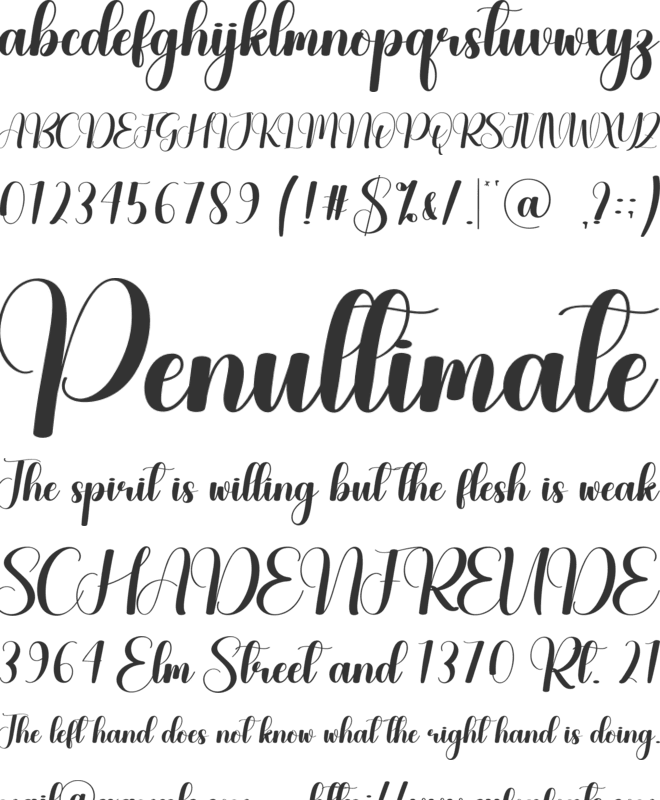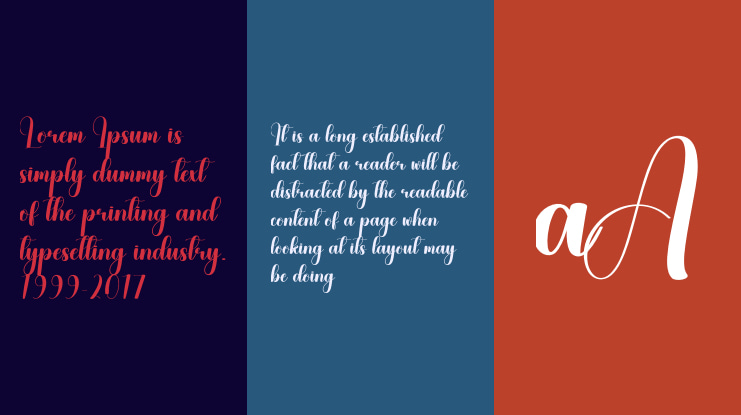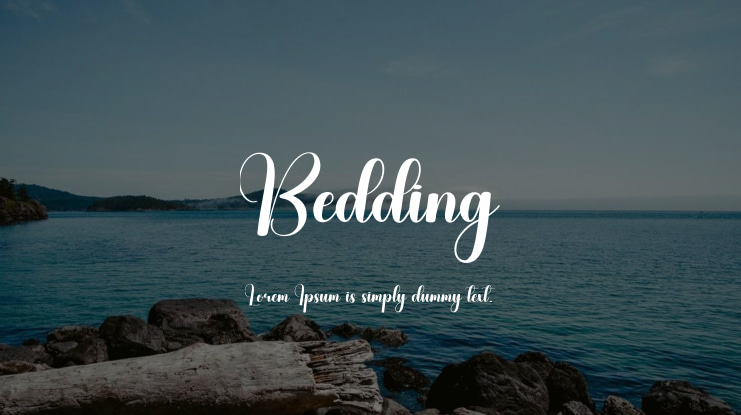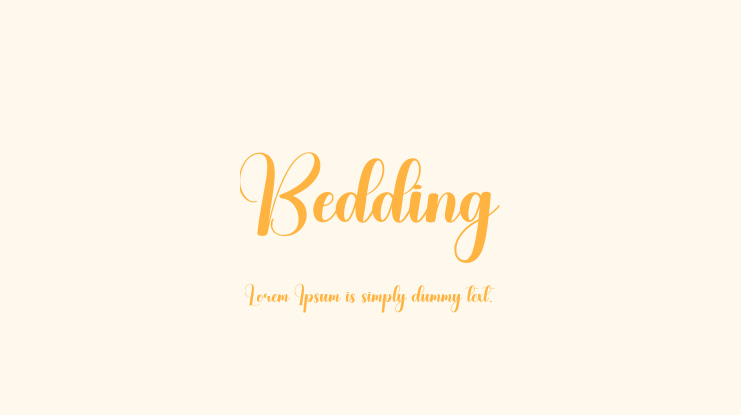
Bedding Font
The latest style letters are perfect for wall displays, wedding invitations, social media post logos, advertisements, product packaging, product designs, labels, photography, watermarks, invitations, stationery, and any project that requires tasteful handwriting.